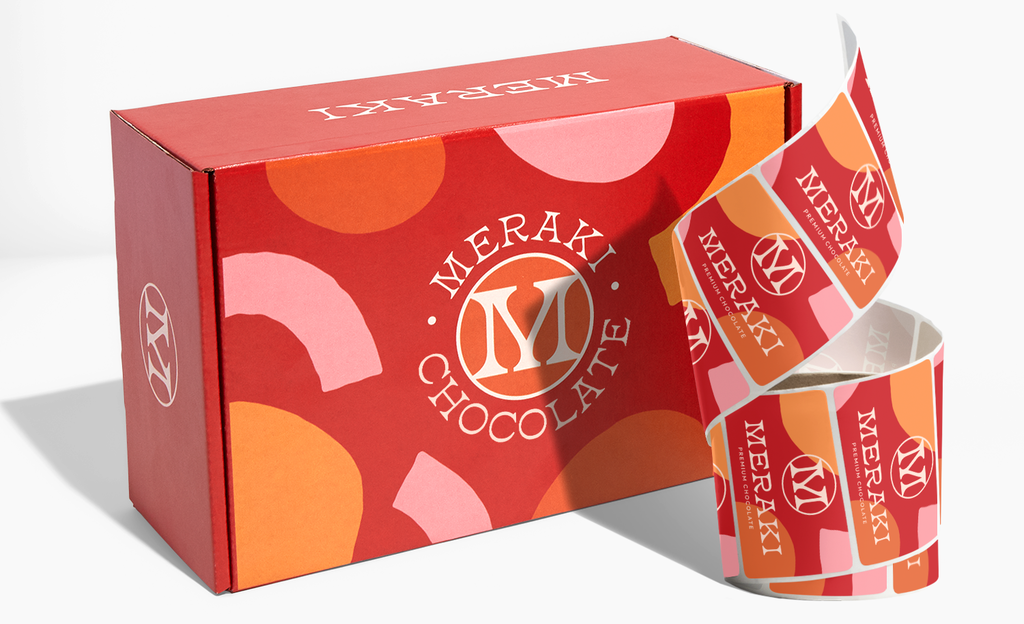
If you’ve ever stared at a brand kit wondering whether your font should rock tiny feet or not, welcome, you’re in exactly the right place! This guide breaks down serif vs. sans serif in plain English, with real-world examples, insights and a helpful step by step guide. By the end, you’ll know which style fits your brand’s personality, where each shines and how to combine them without creating a typographic identity crisis.
- Serifs lean classic, credible and editorial while sans serifs lean modern, clean and approachable.
- Context matters: print vs. digital, long-form vs. user interface (UI) text, luxury vs. scrappy brand, etc.
- There’s no universal “best” font, only the best fit for your brand personality and audience.
- Readability depends more on size, spacing, contrast and execution than on serif or sans serif alone.
- Mixing both styles is powerful when you set a clear hierarchy and limit the number of typefaces.
What are serif and sans serif fonts, and where did they come from?
Serifs are those little finishing strokes on letterforms, think of them as the elegant handles that guide your eye along a line of text. Sans serifs ditch the handles for a streamlined look. Historically, serifs evolved from Roman inscriptions and centuries of book printing. Sans serifs arrived later, popularised in the 19th and early 20th centuries as industrialisation and modernism demanded simpler, more utilitarian forms. That historical baggage matters: it quietly shapes how people feel about your brand before they read a single word.
Key characteristics and psychological impact: Serif vs. sans serif fonts
Brand perception isn’t random, it’s influenced by what researchers call typeface personality and processing fluency, i.e. how easily something is read and understood. Studies in typography and marketing psychology have repeatedly shown that people attribute traits to typefaces: warmth, competence, sincerity, excitement, sophistication and so forth.
Serif typefaces often score higher on signals of tradition and authority, while sans serif typefaces often score higher on modernity and clarity. When text is easy to process (good spacing, line length, contrast), people tend to judge the content and the brand more favorably. The takeaway: choose a style that matches your brand’s intended personality, then execute it with excellent readability.
Best font for branding and identity
Picking the best font for your branding isn’t about what’s trending on social media, it’s about aligning the silent message of your brand typeface with your brand’s identity. Look at your mission, values, audience and the contexts where your brand lives, then choose the style that tells the same story before the words even land.
Serif
Serifs excel when your brand leans artisanal, authoritative or editorial. Think boutique hotel, legal firm, investment advisory, craft coffee roaster or a founder-led storytelling brand. A serif logo can make a young business feel established and tasteful, which is gold if you’re selling trust, expertise or craftsmanship.
Popular examples and why they work
Old-style serifs (like Garamond) deliver warmth and tradition. Transitional serifs (like Baskerville) offer elegance and high contrast. Modern serifs (like Didot or Bodoni) feel luxurious and fashion-forward, while slab serifs (like Clarendon) hit a friendly, sturdy note that can feel both vintage and bold.
Where to use in branding
Serifs can be fantastic for logos and headlines on packaging, menus and editorial-style websites. For long-form blog posts or print brochures, they offer a rich reading texture, provided that you dial in size, spacing and line length.
Sans serif
Sans serifs are the go-to for brands that want to feel modern, easygoing and efficient. That’s why you’ll find them in consumer-facing brands, fintech apps and product-led companies. A sans serif logo reads instantly at small sizes, scales beautifully and plays nicely with icons and UI components.
Popular examples and why they work
Grotesques (like Helvetica, Akzidenz) bring a straightforward, neutral voice. Humanist sans serifs (like Gill Sans, Frutiger, Calibri) add warmth and motion. Geometric sans serifs (like Futura, Avenir, Poppins) feel precise and contemporary. Neo-grotesques (like Inter, Roboto) are optimised for screens and interfaces. Different sans families let you tune your vibe from friendly to sleek.
Where to use in branding
Sans serifs shine in digital-first environments: websites, apps, emails, product interfaces and ad creative where small sizes and fast scanning matter. For startups aiming at clarity and scale, a sans serif system simplifies your design ops across channels.
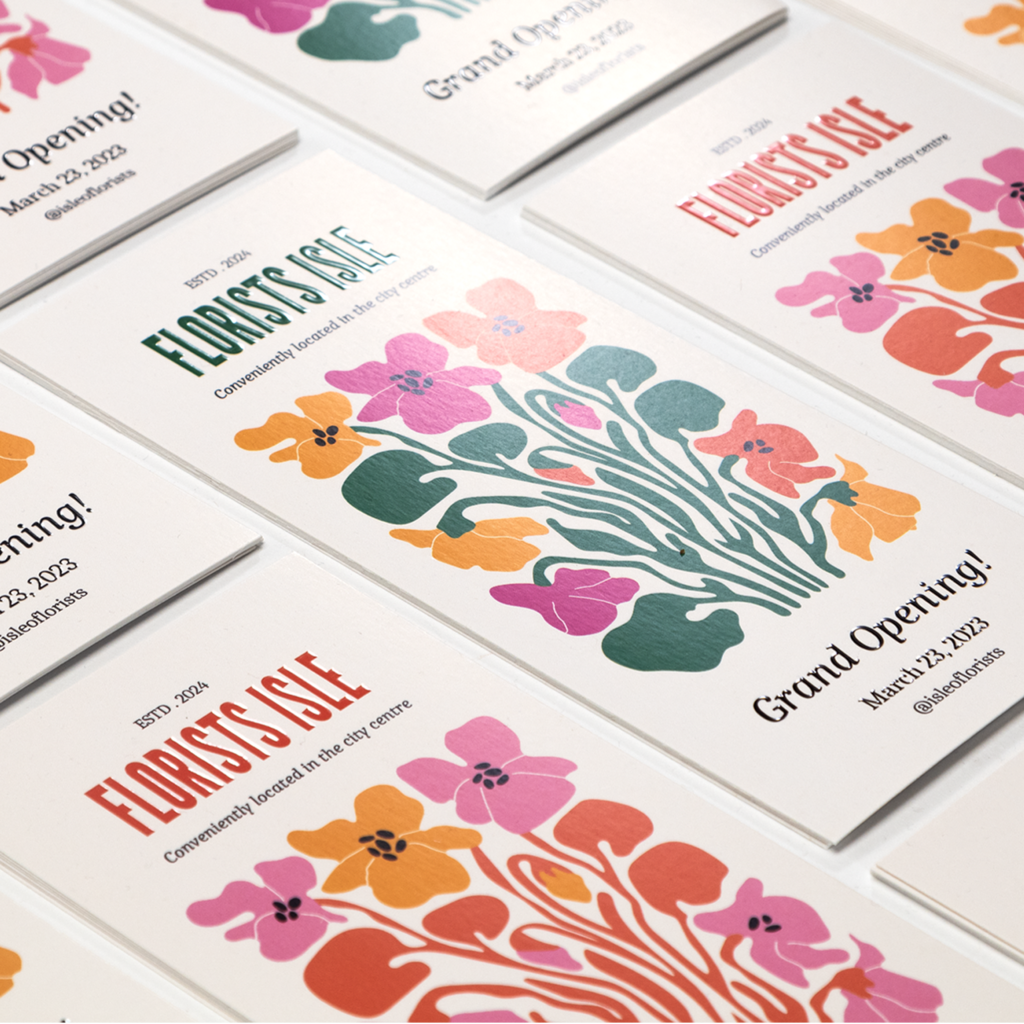
Design contexts and considerations for sans serif vs. serif fonts
The font you choose shouldn’t live in a vacuum. It should flex across channels, sizes and situations, keeping your brand voice consistent while staying readable and practical.
What emotions or brand messages are conveyed by serif vs. sans serif fonts?
Serifs commonly convey trust, sophistication, tradition and craft. Sans serifs communicate clarity, modernity, friendliness and efficiency. Pick the style that reinforces the emotion you want customers to feel before they read the first sentence.